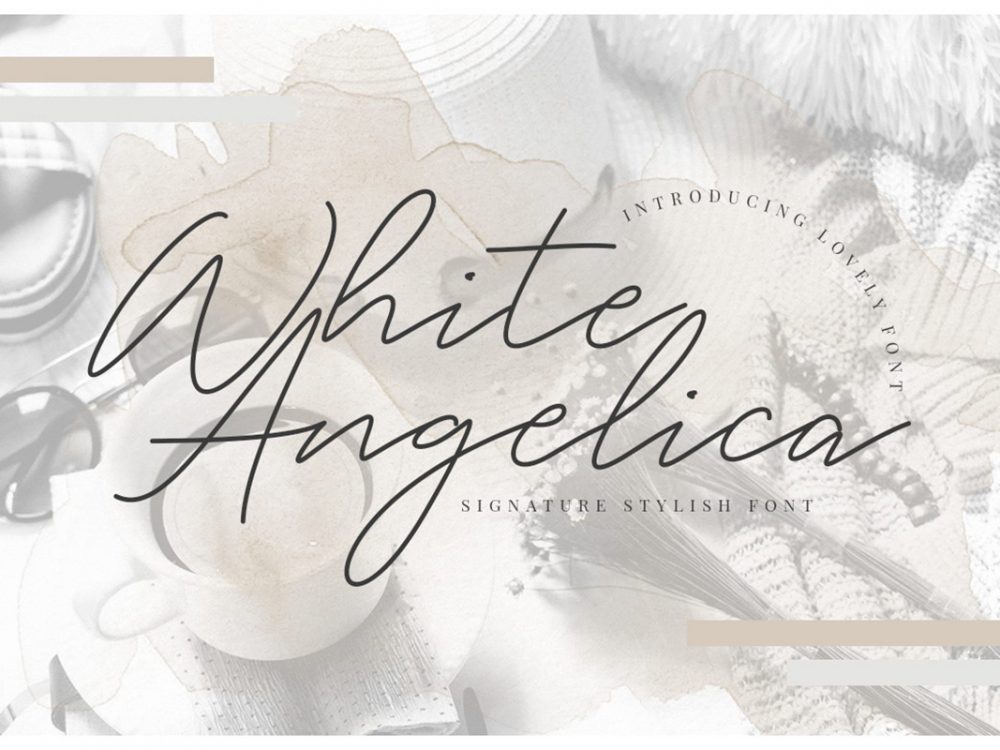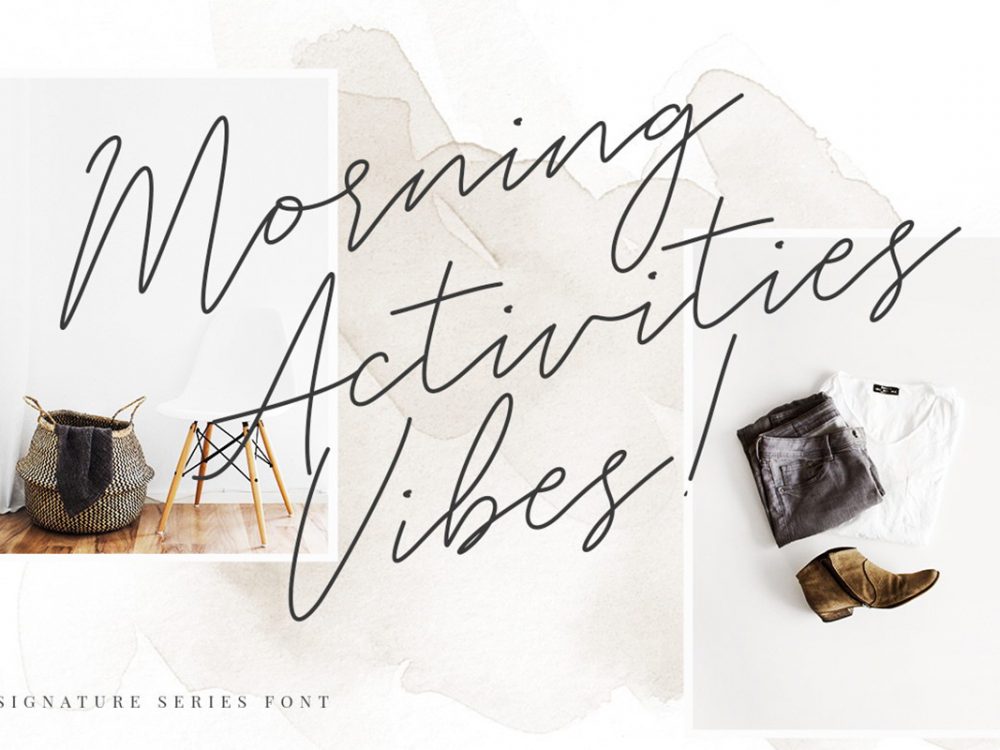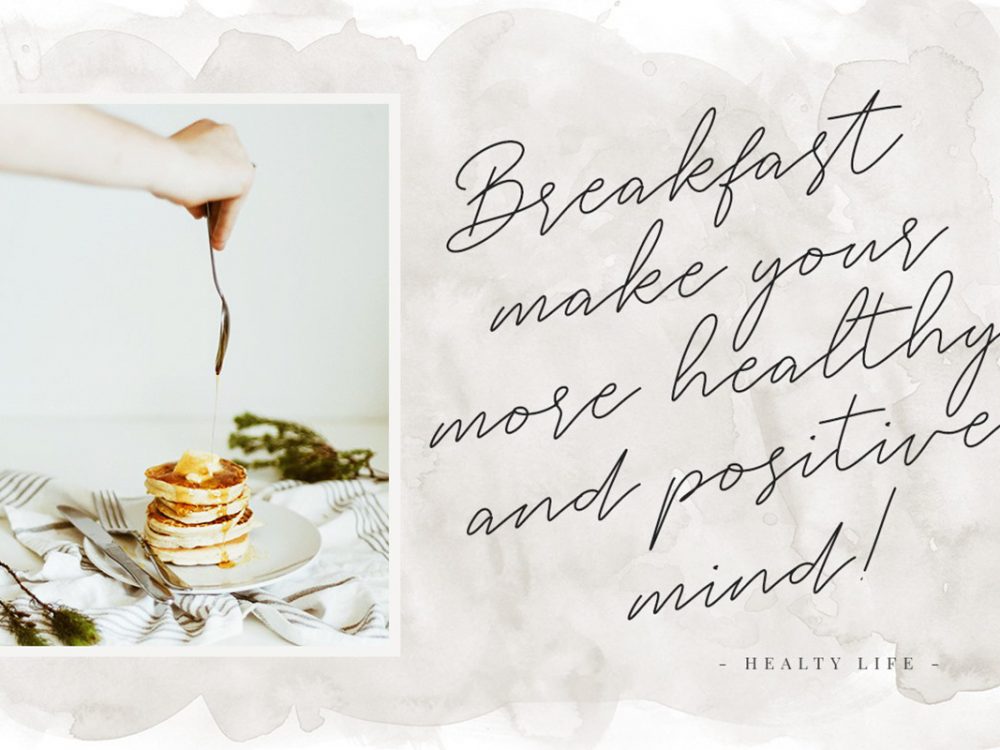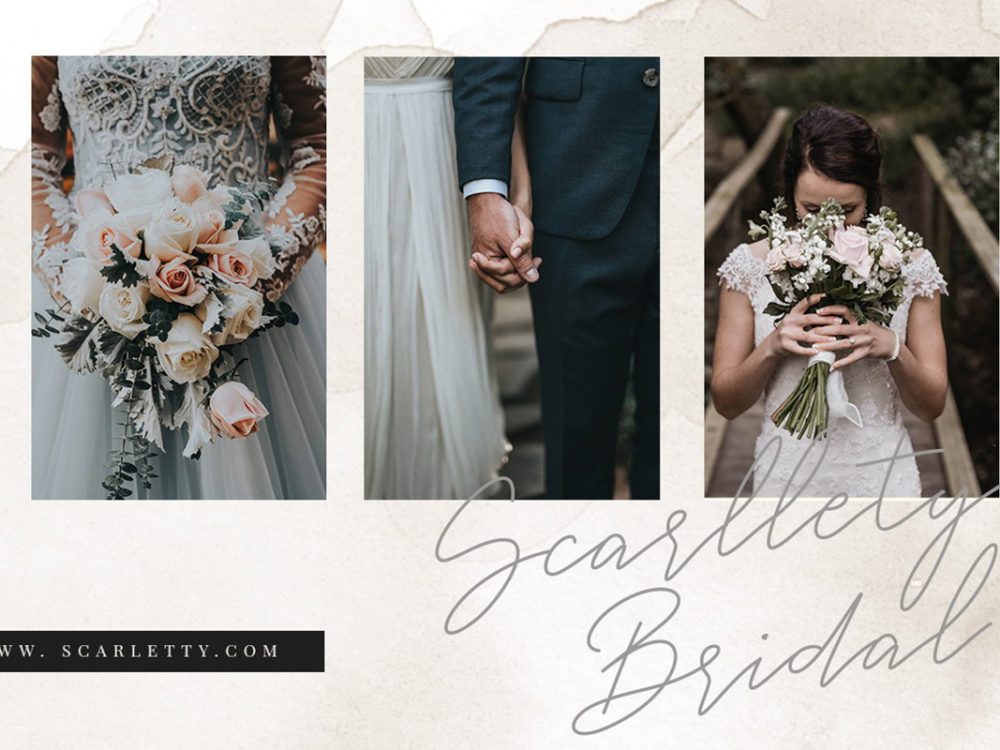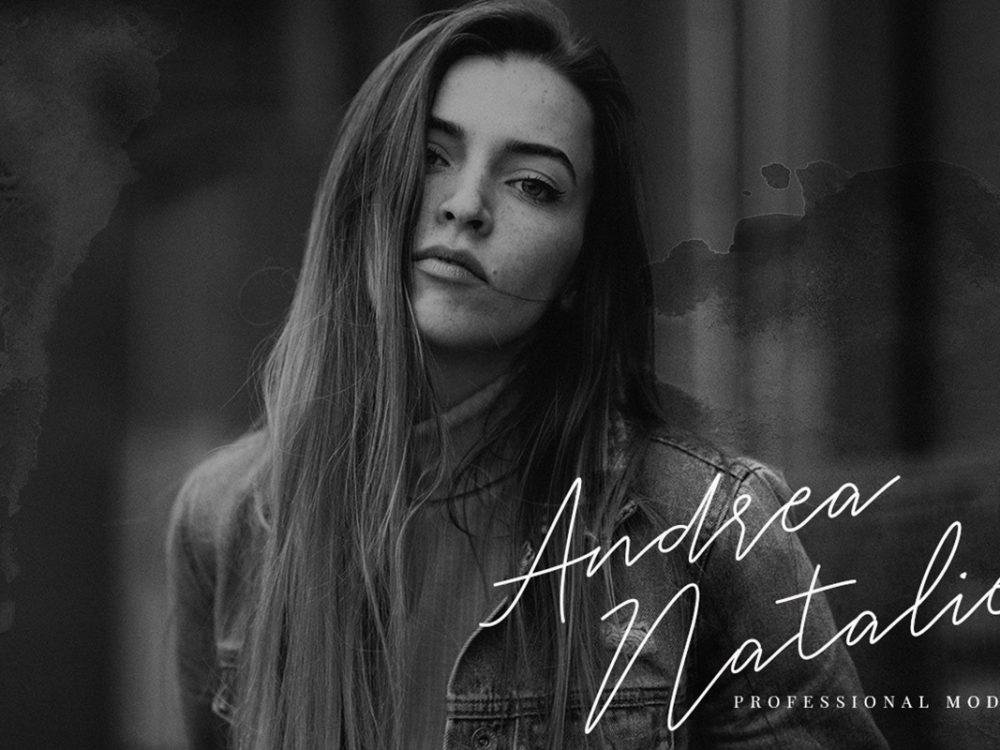
Free White Angelica Signature Font
Free White Angelica Signature Font is an interesting beautiful handwritten font that has an elegant style and is perfect for many design projects. You can use this font for posters, branding, greeting cards, wedding invitations, label designs, prints, and more.